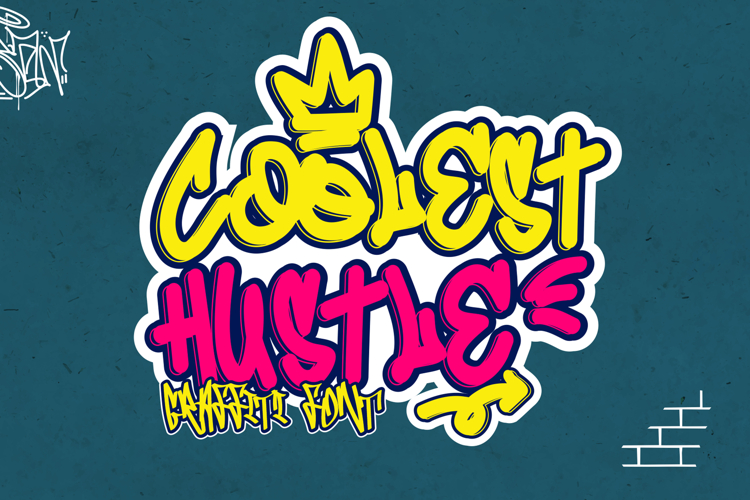
Coolest Hustle - Decorative Monoline Graffiti Font
Coolest Hustle is a standout decorative monoline graffiti font, designed for those who crave artistic expression with a modern twist. With three unique styles—solid, outline, and decorative—this font brings versatility and flair to your projects.
🎨 Monoline Mastery: The sleek, continuous strokes of this font deliver a clean yet edgy aesthetic, perfect for urban designs, street art-inspired projects, and bold branding.
🖍️ Three Styles in One: Whether you want a strong, solid look, a dynamic outline effect, or intricate decorative touches, Coolest Hustle offers everything, allowing you to mix and match styles.
🌟 Bold Creativity: From posters to apparel designs, this font makes a powerful statement with its graffiti-inspired letters. The decorative style adds extra artistic flair, making your work truly pop.
Coolest Hustle is your go-to font for adding that perfect urban touch with a fresh, creative edge.